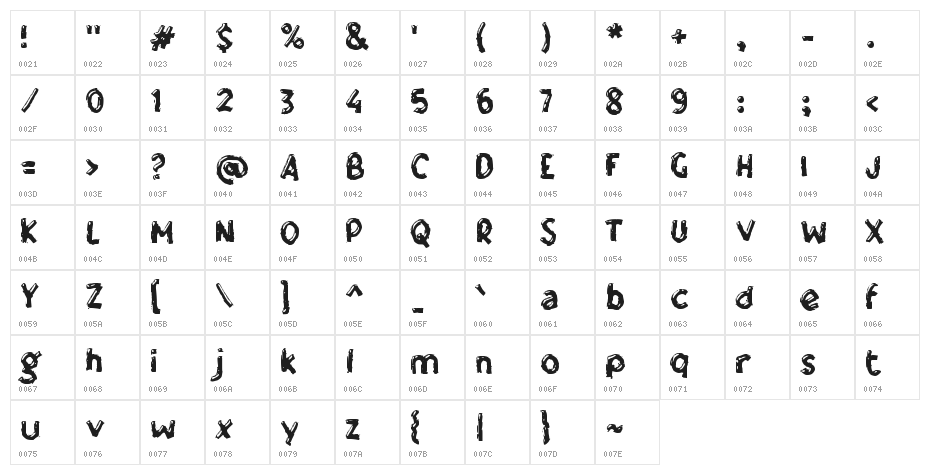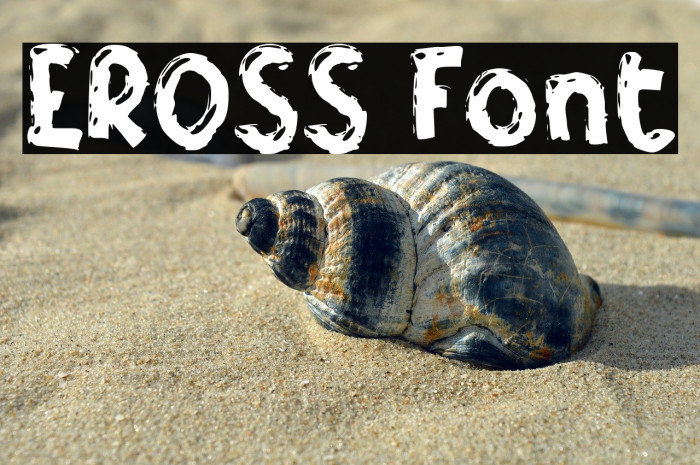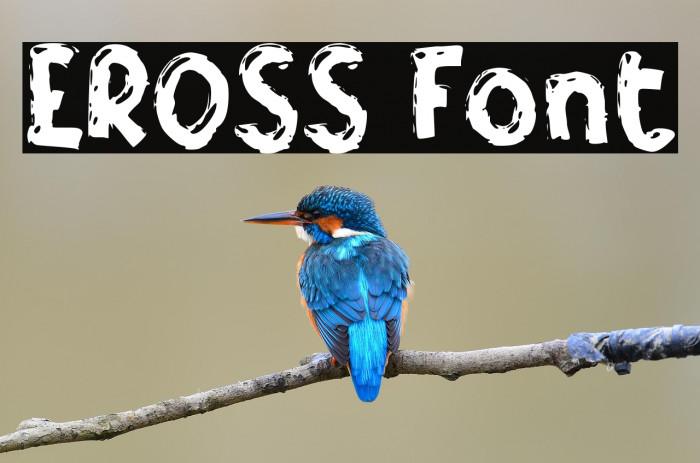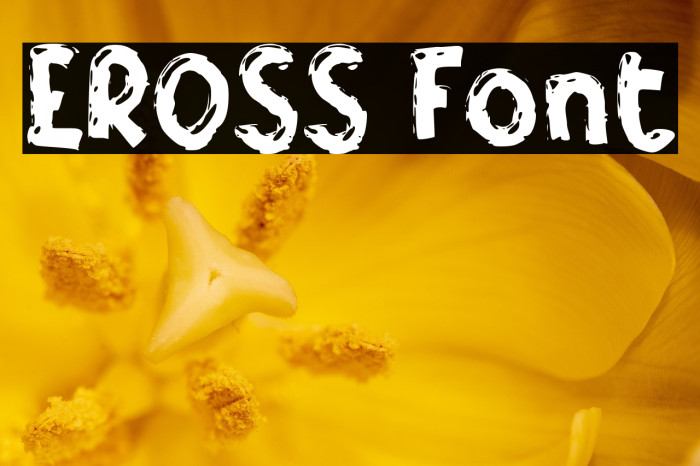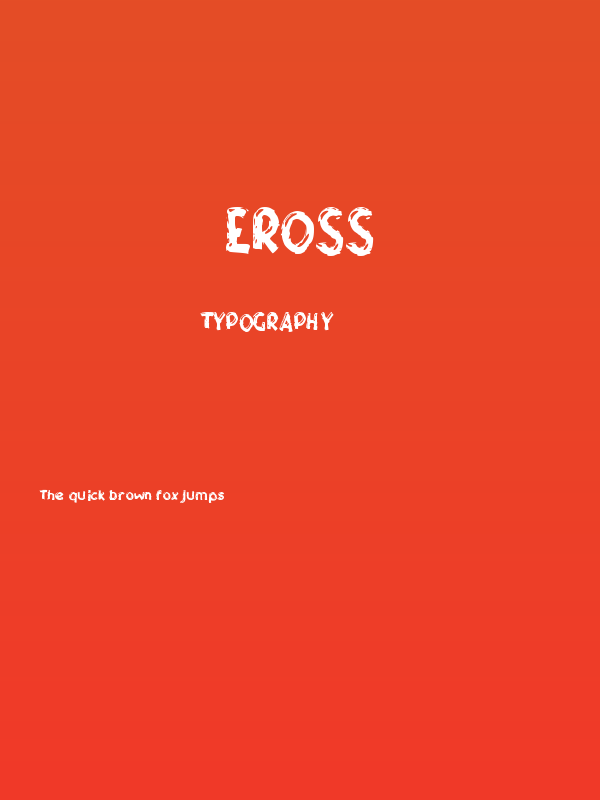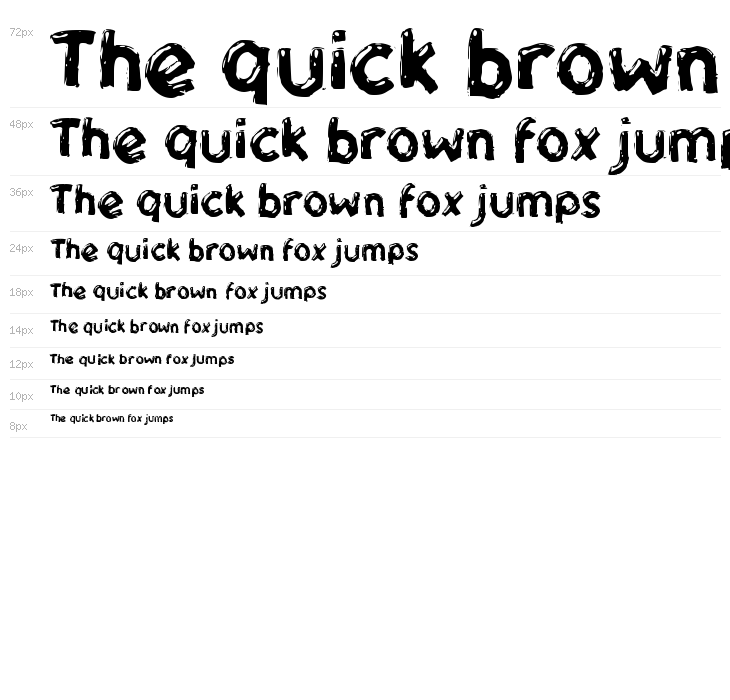
EROSS Font
EROSS Description
This font features a bold and expressive style with a hand-drawn appearance. The characters are uneven and have a rough, textured look, giving them a dynamic and energetic feel. The uppercase and lowercase letters maintain a consistent style, with a playful and artistic flair. Numbers and special characters follow the same design, ensuring a cohesive look across all text elements. The font's unique style makes it stand out, ideal for projects that require a creative and informal touch.